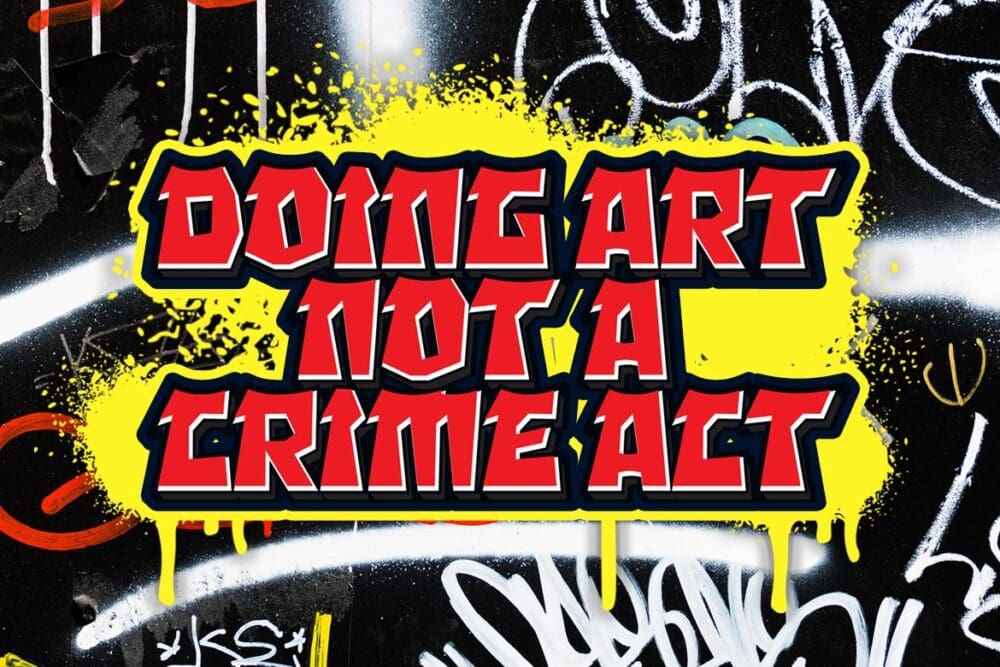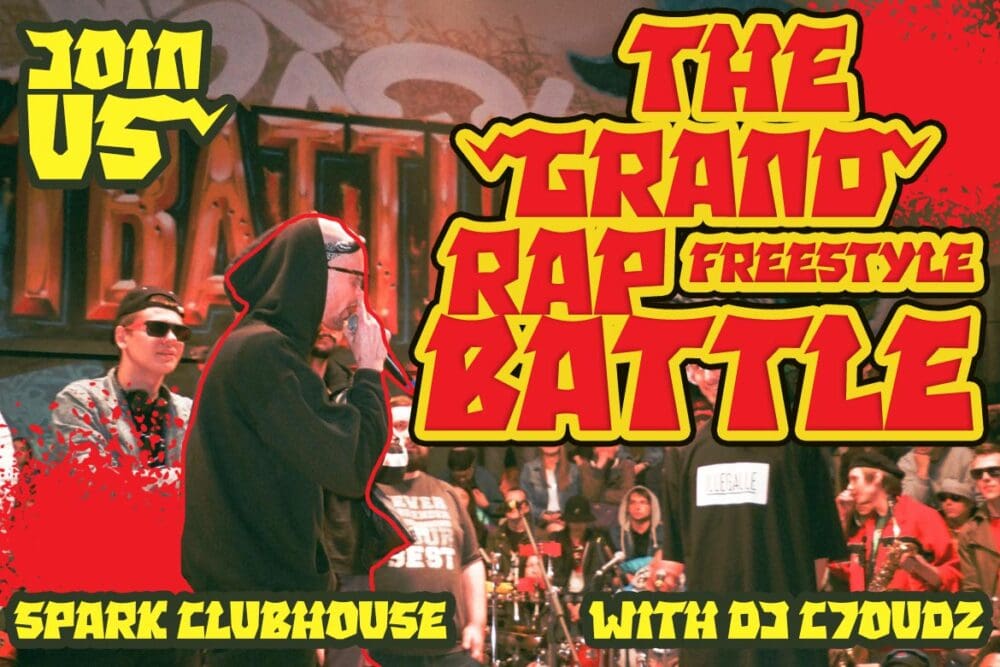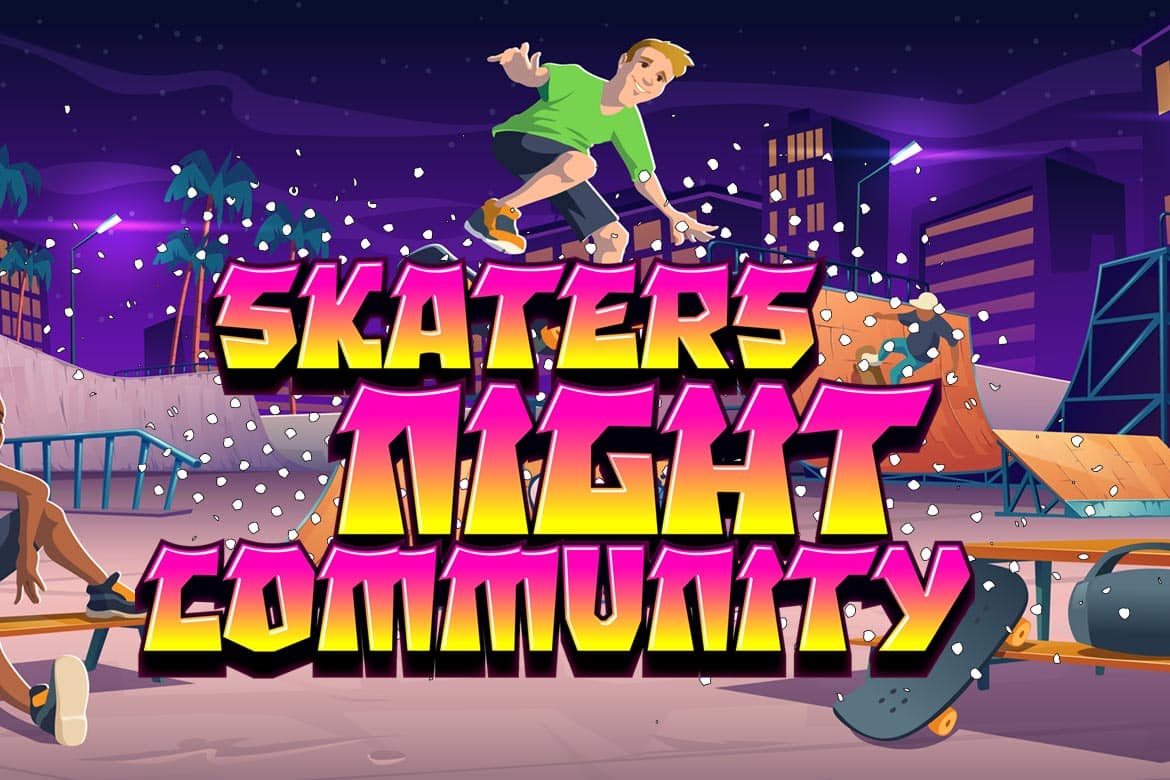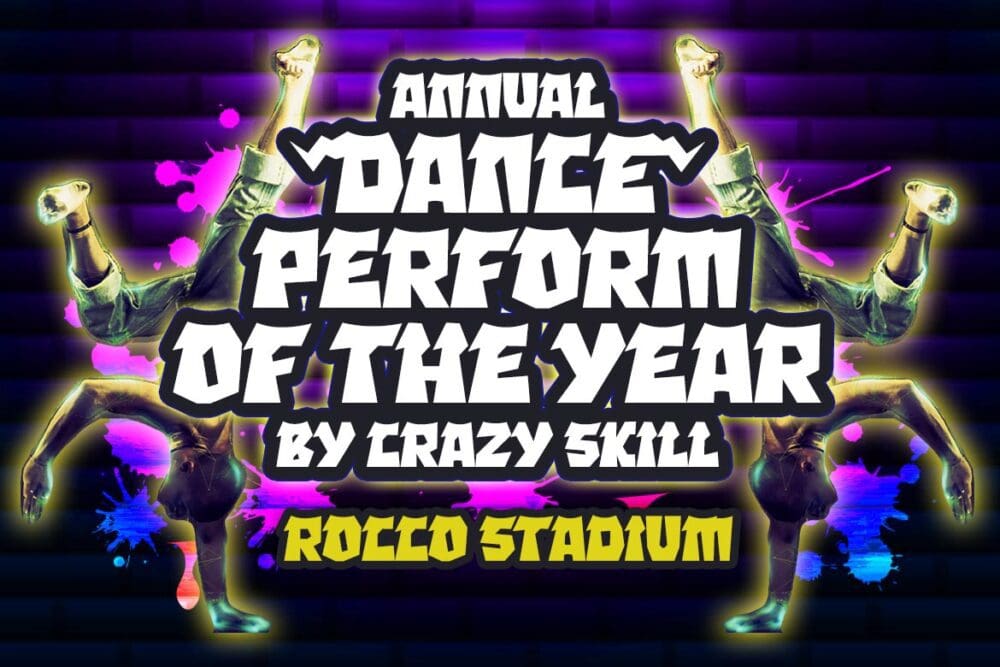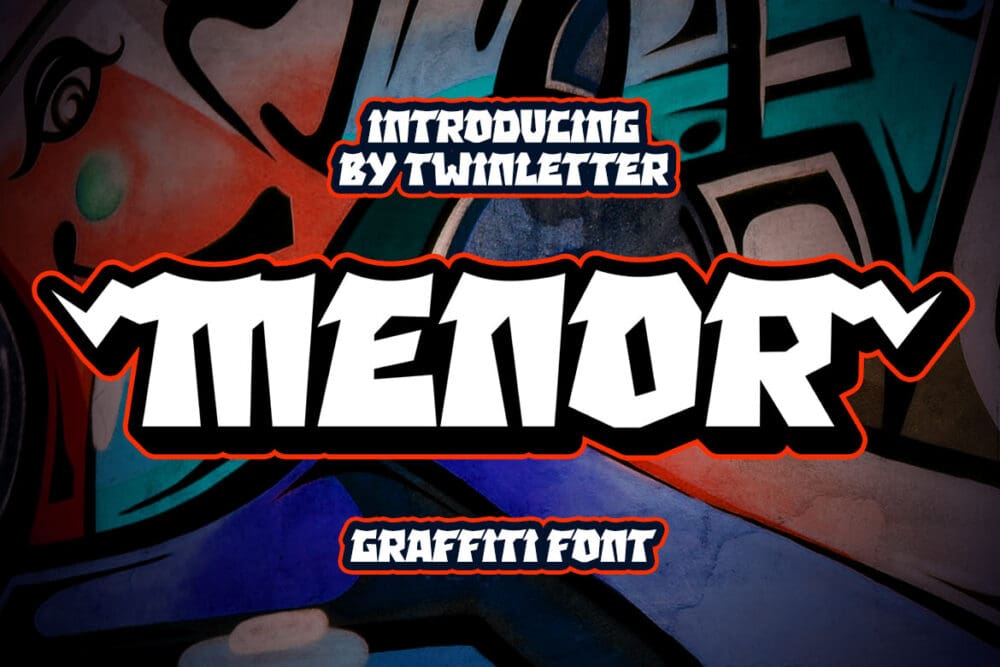
Menor Font
Menor is a graffiti font with a distinctive and appealing abstract shape that has a unique shape in each character, making this font appropriate for your outstanding project. This font also contains an alternation of enormous letters to beautify your project, so don’t wait. Use this typeface once more to create a lovely and stylish project.